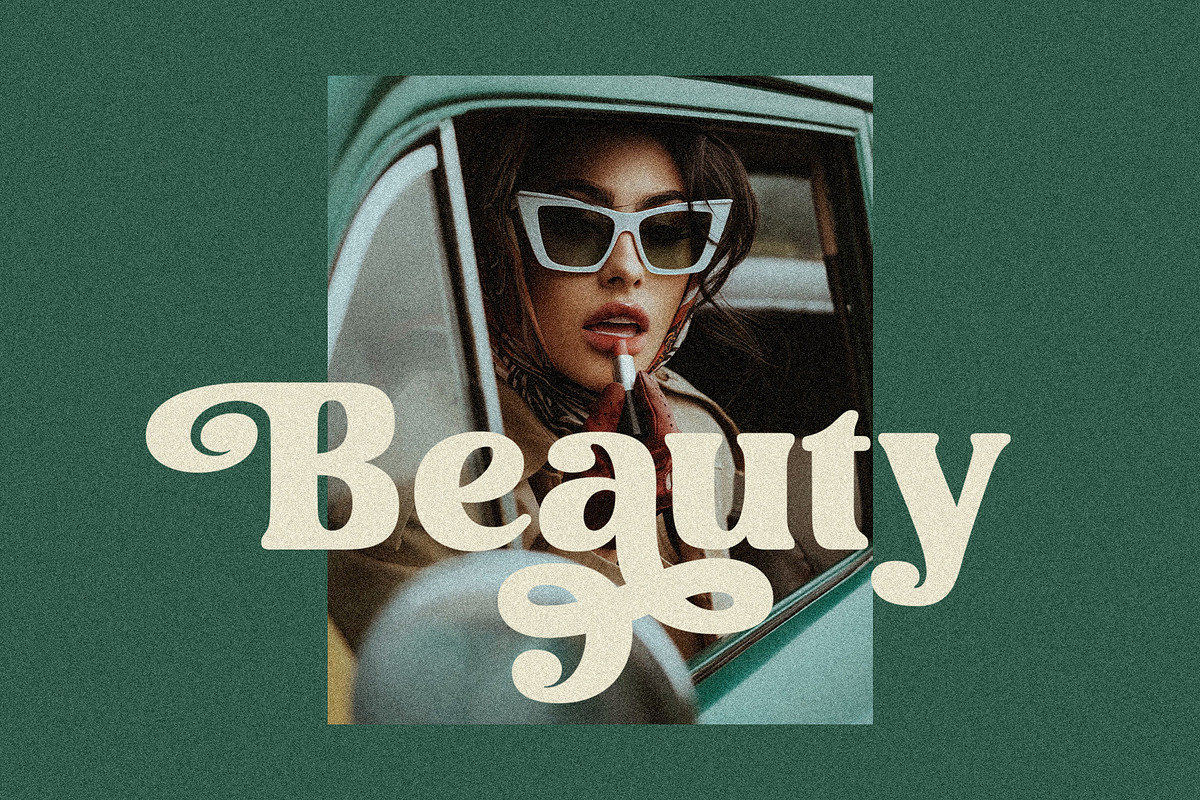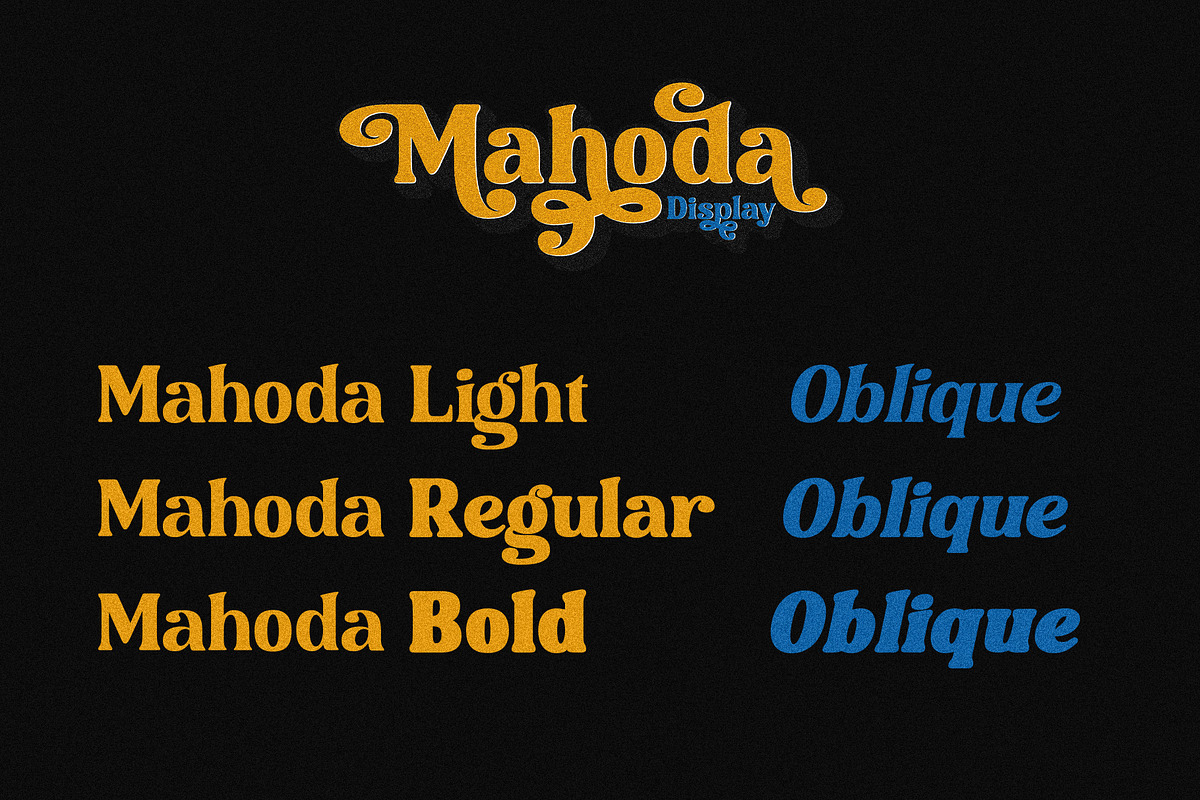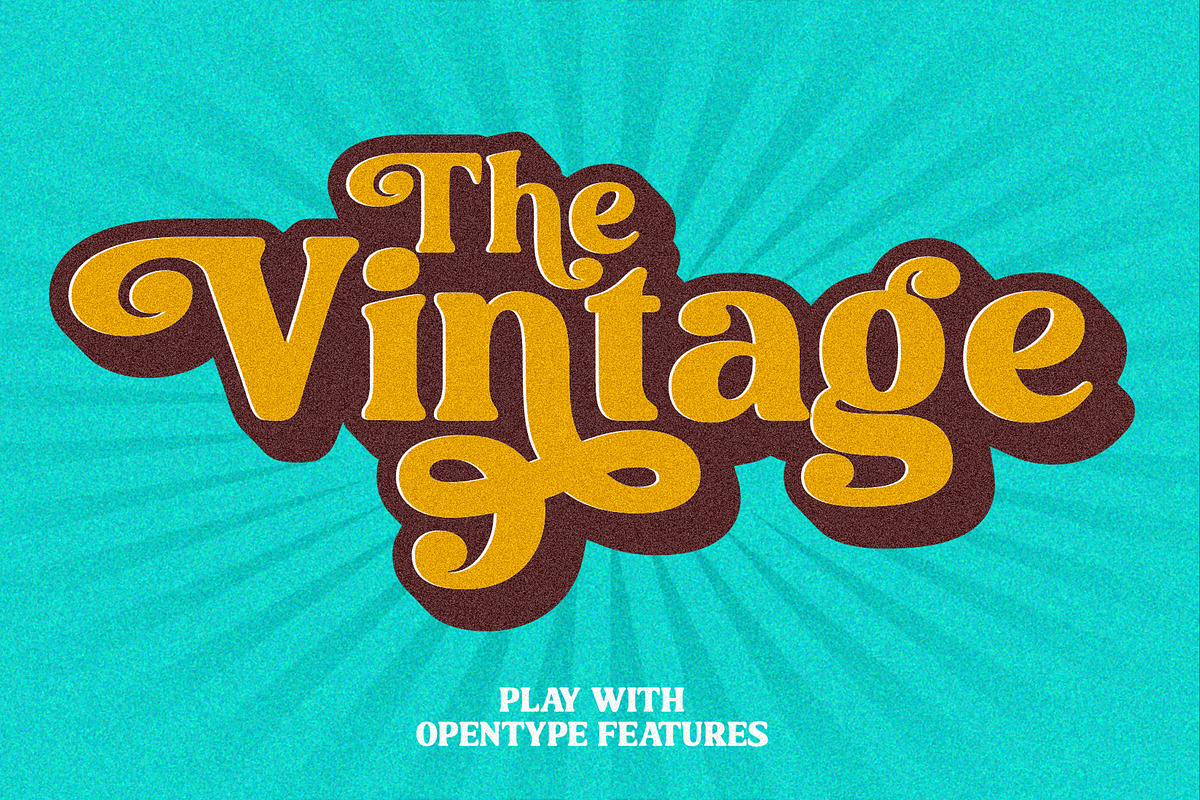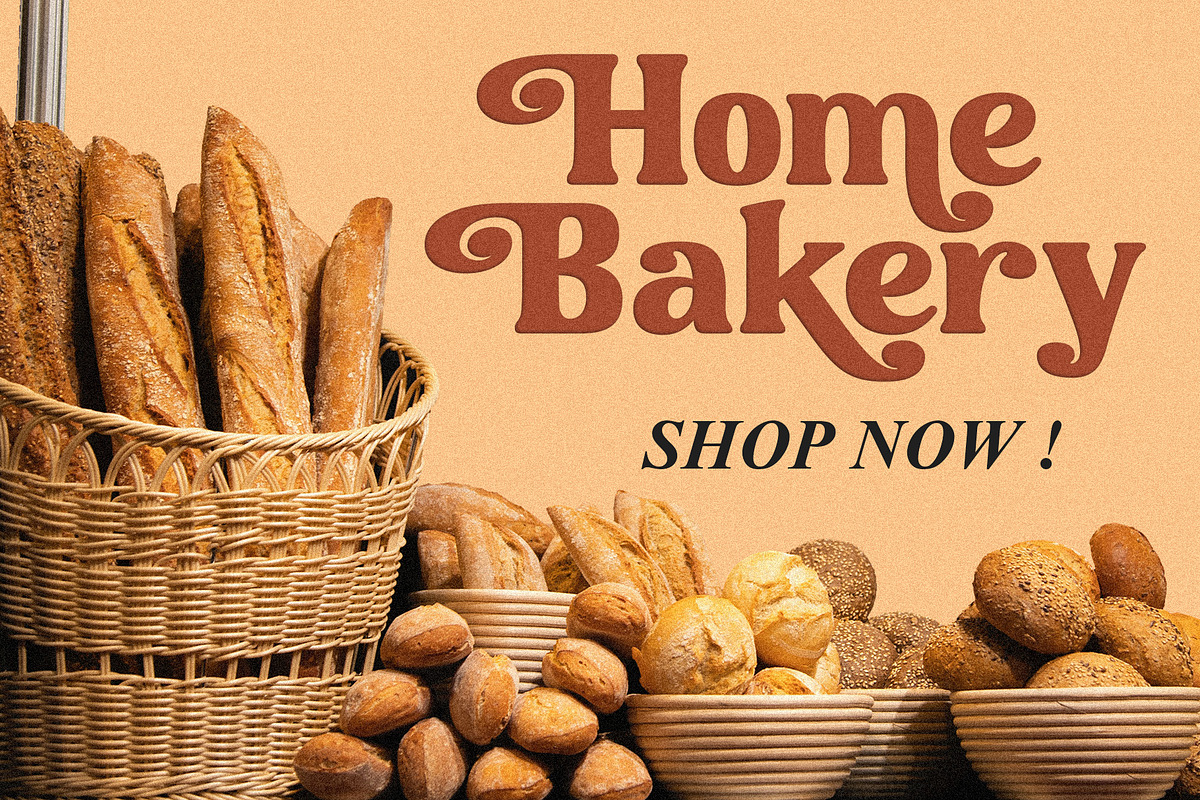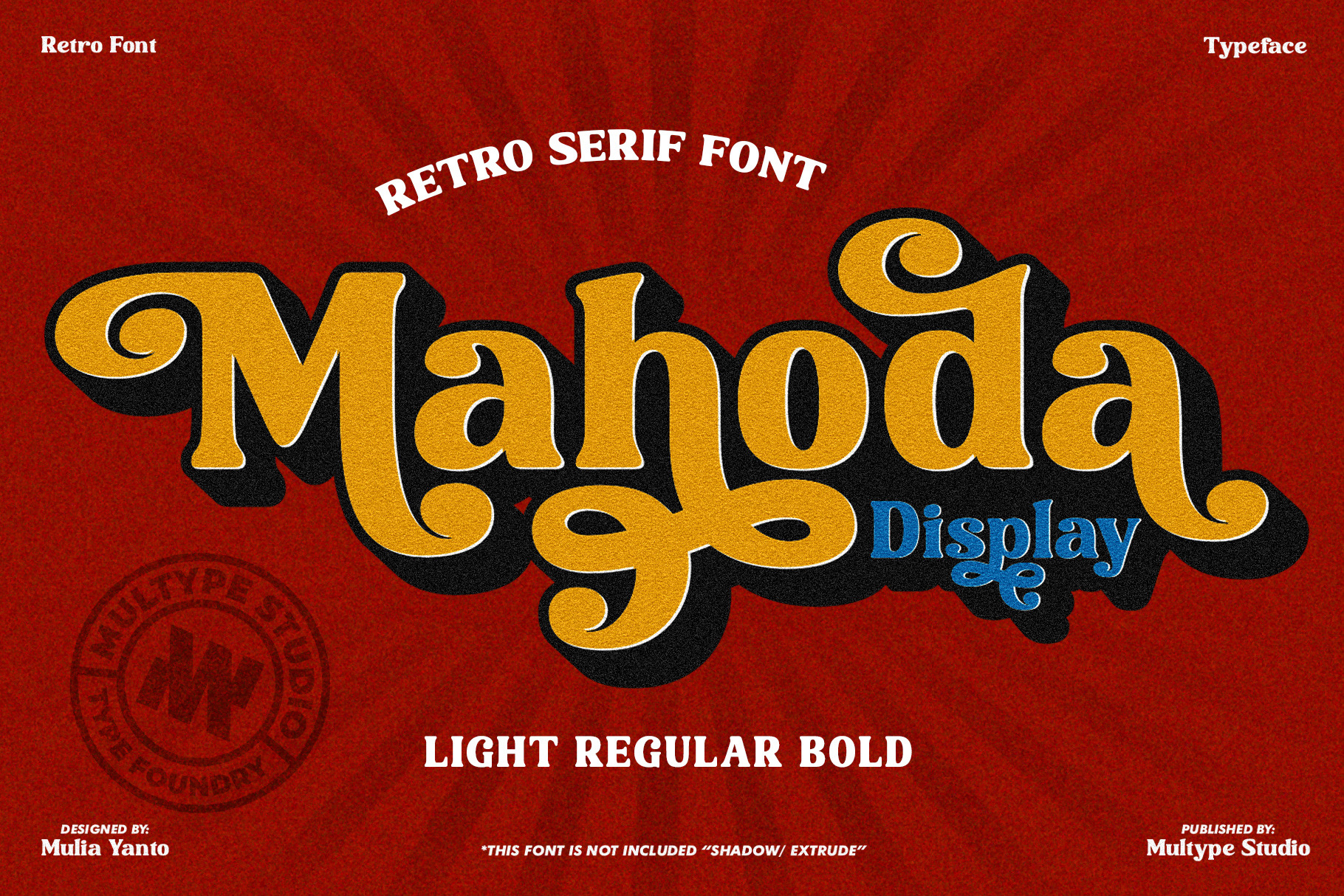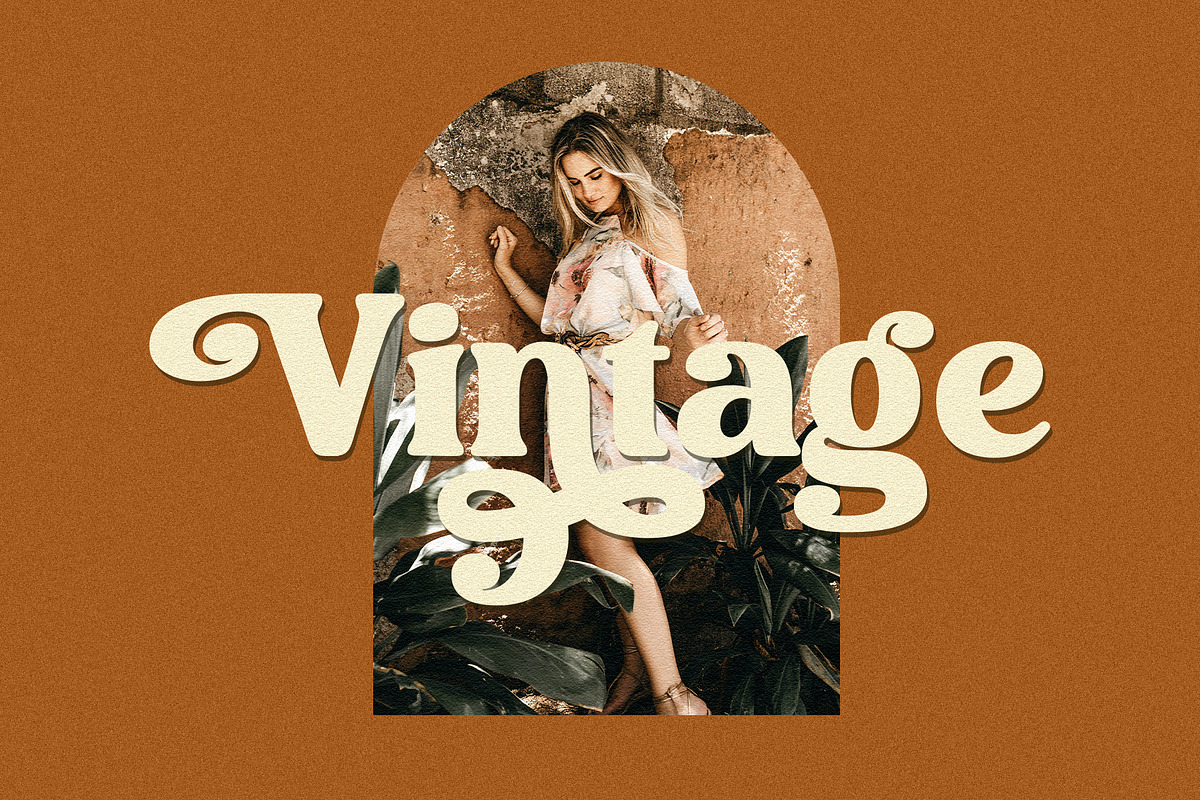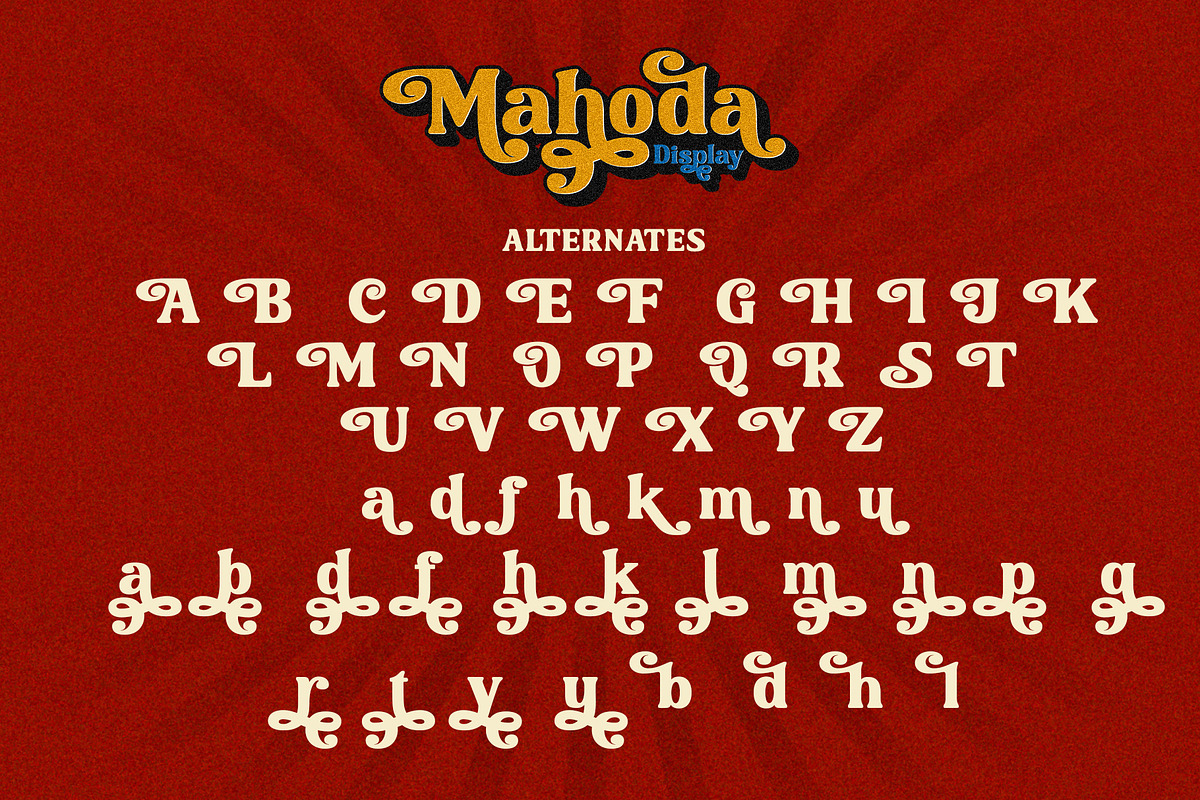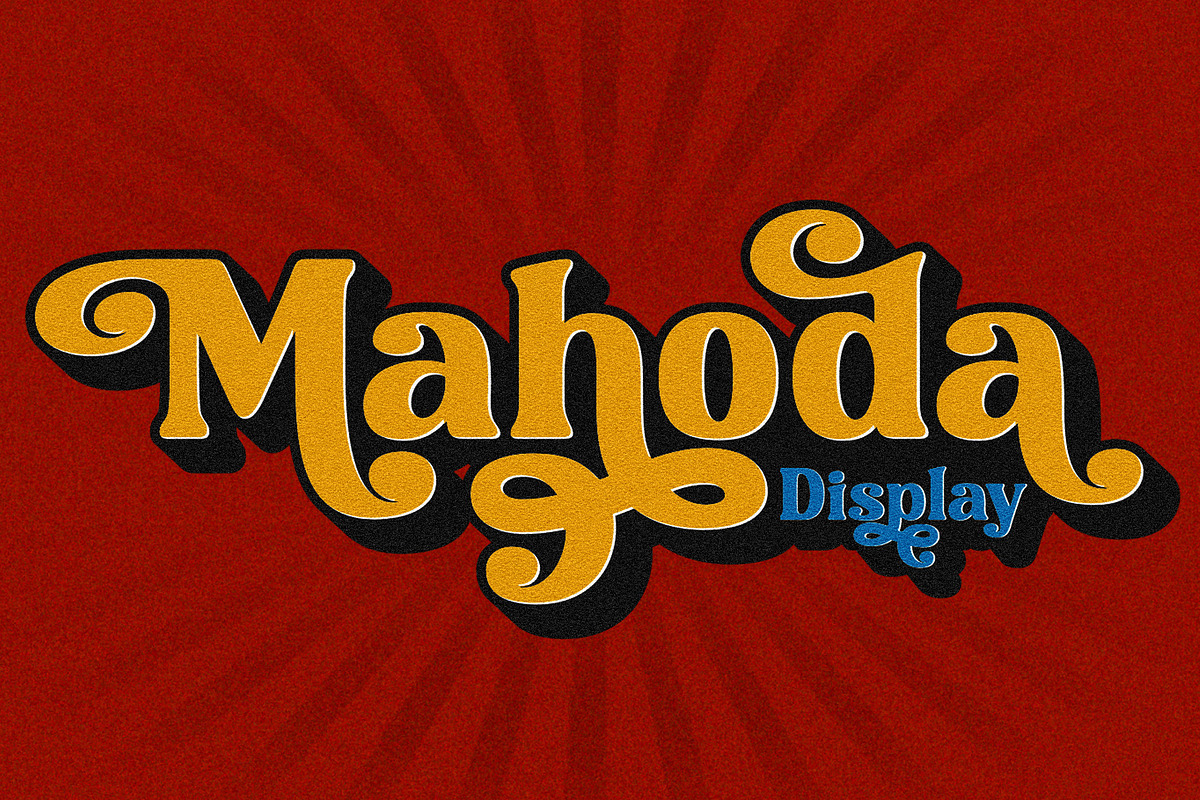
Mahoda Display Retro Serif Font
Mahoda Display is a decorative serif family. It contains three weights Light, Regular, Bold. With many alternates character to access in OpenType features. This font is perfect for branding, logos, social media, advertisements, product packaging, watermark, invitation, stationery, tshirt, prints, posters and more.
- Stylistic Alternate
- Numbers & Symbols